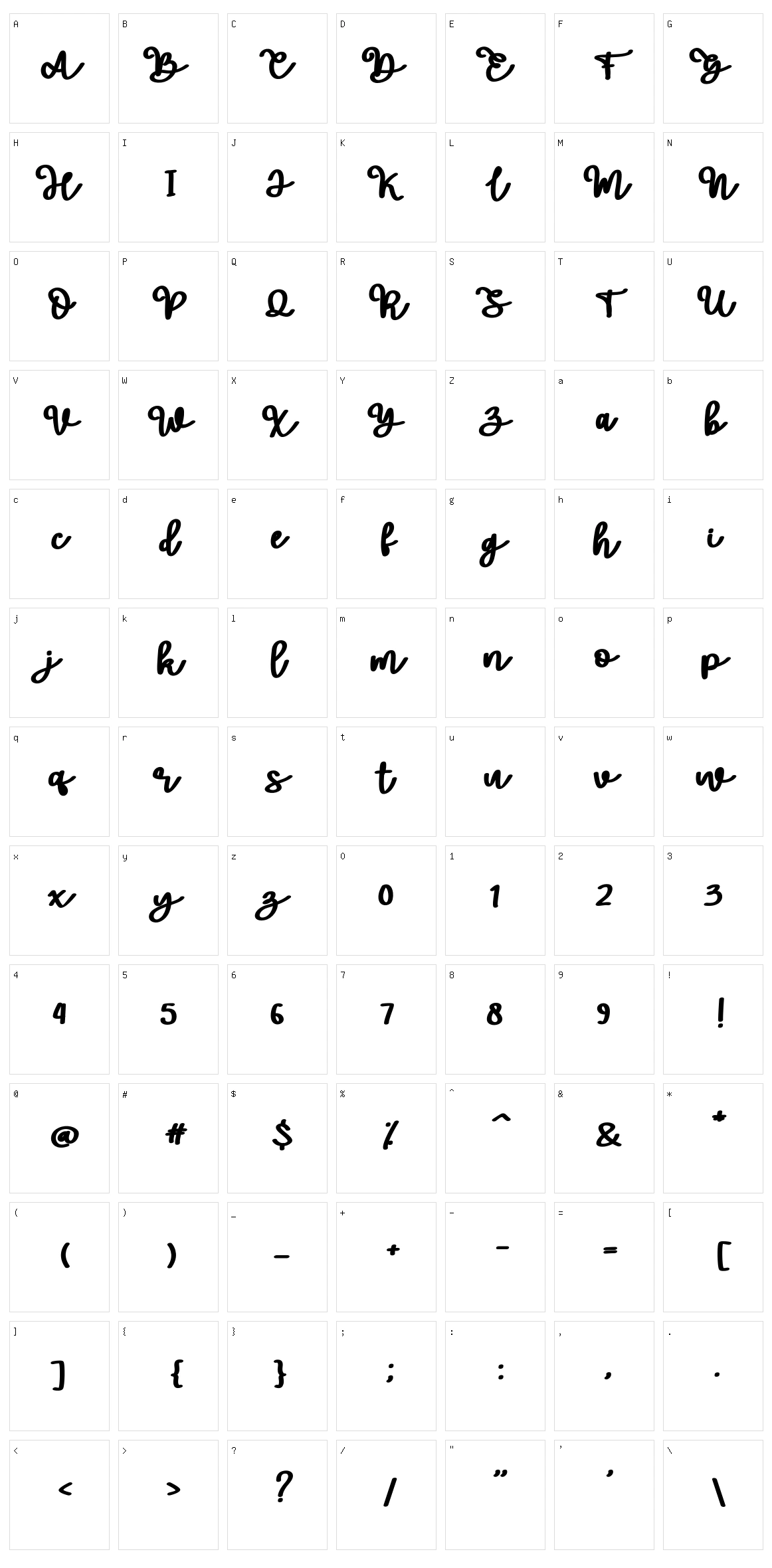
The free font Raymond is carefully designed by Vunira Design, showcasing a thoughtful balance of creativity and usability and falls under the Script font style. When you download the ZIP file, it contains only 76.78 KB of font files, making it lightweight and quick to download. Please review the license details below to understand permitted usage and distribution rights. If license information is not available, we recommend using this font for personal projects only or contacting the author directly for commercial usage permissions.